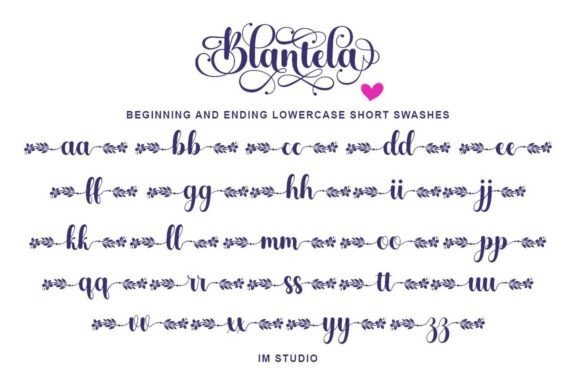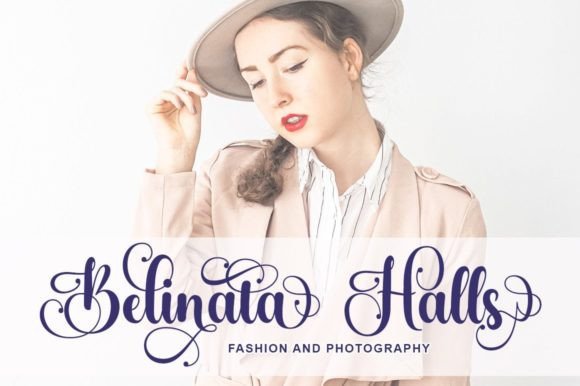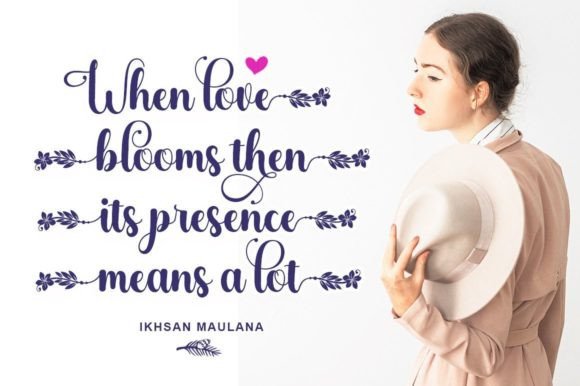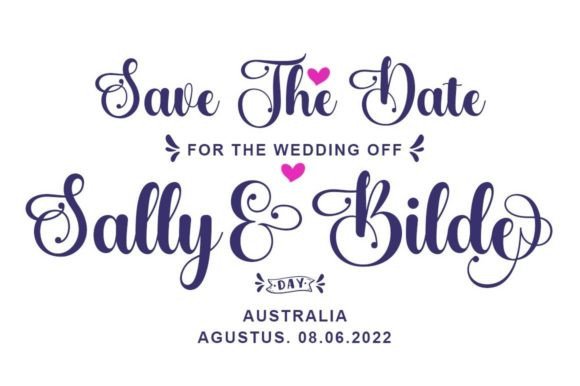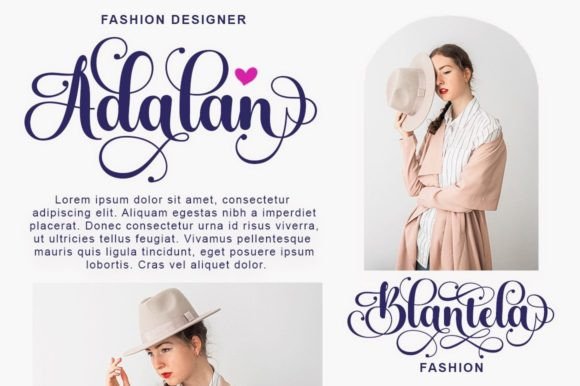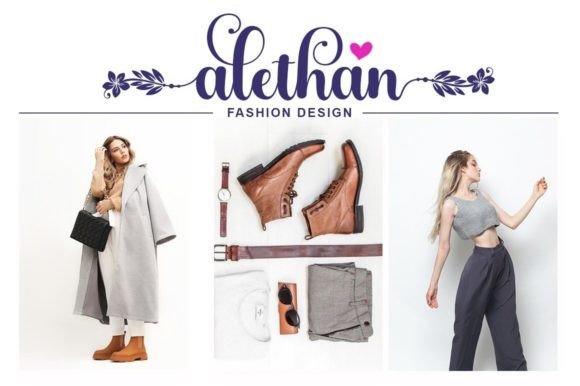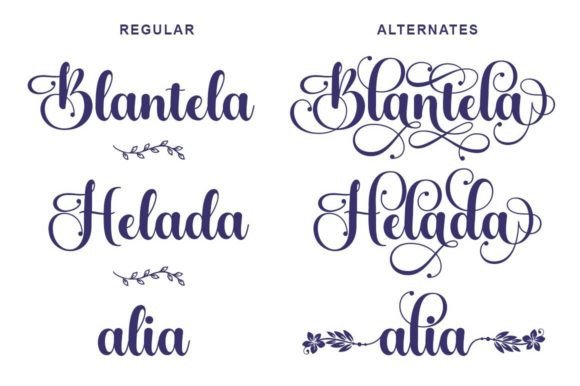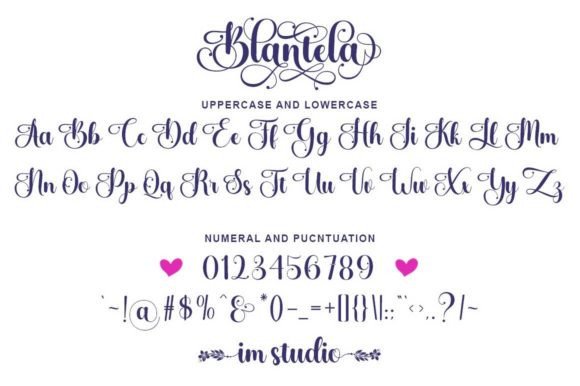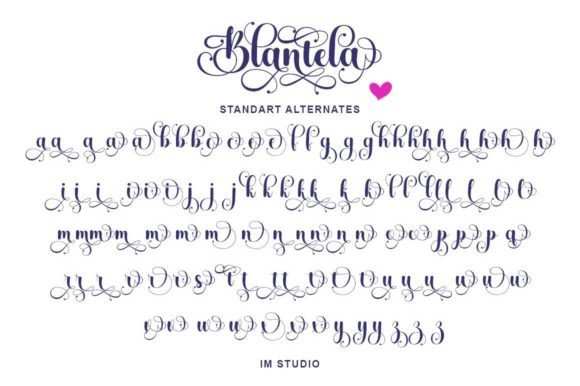
Blantela Font
About Blantela Font
Welcome to the world of elegance with Blantela, a stylish and refined font crafted to bring a touch of romance to a wide spectrum of applications. Whether you’re working on greeting cards, headlines, or any creative project, Blantela is designed to guarantee a sense of sophistication and romance to each of your creations.
Blantela stands out with its stylish and refined design, exuding an air of elegance that elevates your text. The font is crafted to add a touch of romance, making it a perfect choice for projects that require a touch of sophistication and charm. Its versatility ensures that it seamlessly integrates into a variety of design contexts.
The refined style of Blantela extends across a spectrum of creative possibilities. From elegant greeting cards to captivating headlines, this font is created to enhance the overall aesthetic of your projects, ensuring that they radiate a sense of romance and style.
Consider Blantela not just as a font but as a design companion that adds a refined touch to your creations. Its stylish and romantic design makes it suitable for a wide range of applications, providing you with the flexibility to express your creativity with sophistication. Let Blantela be the font that guarantees a touch of romance and refinement to your diverse creative endeavors.